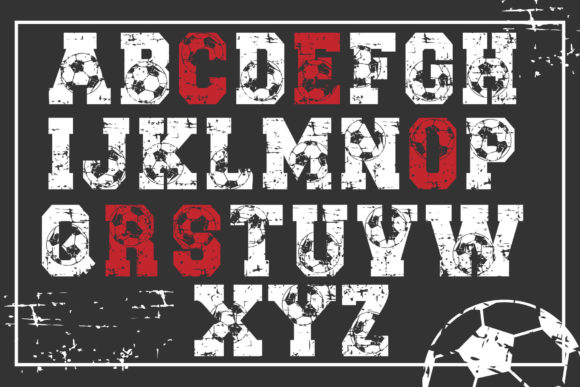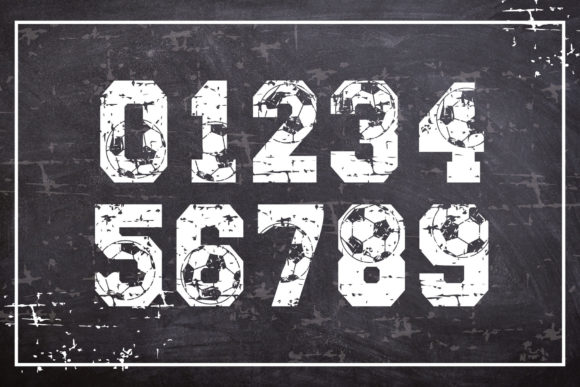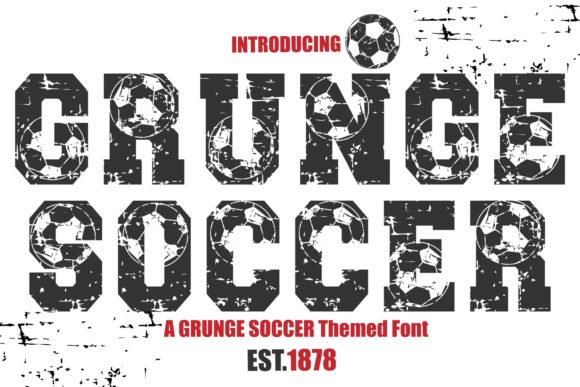
Introduction to Grunge Soccer Font
Grunge Soccer is a bold and assertive display font.
Sharp looking and cool, this font will truly inspire each of your works Use this font for each of your sports-related designs and explore its endless possibilities.